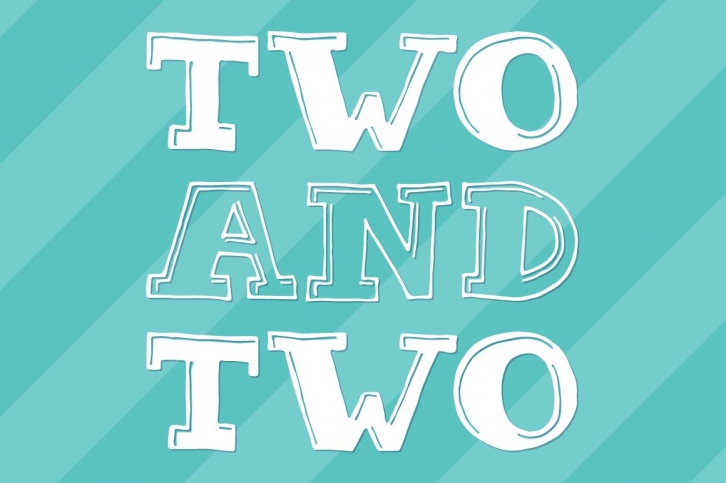
Two & Two is a unique font that includes 76 characters in two different style: outline and filled.
This font is designed for print, but can also be used on the web at large sizes.